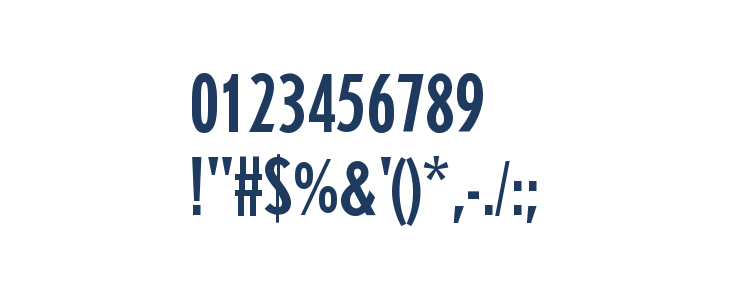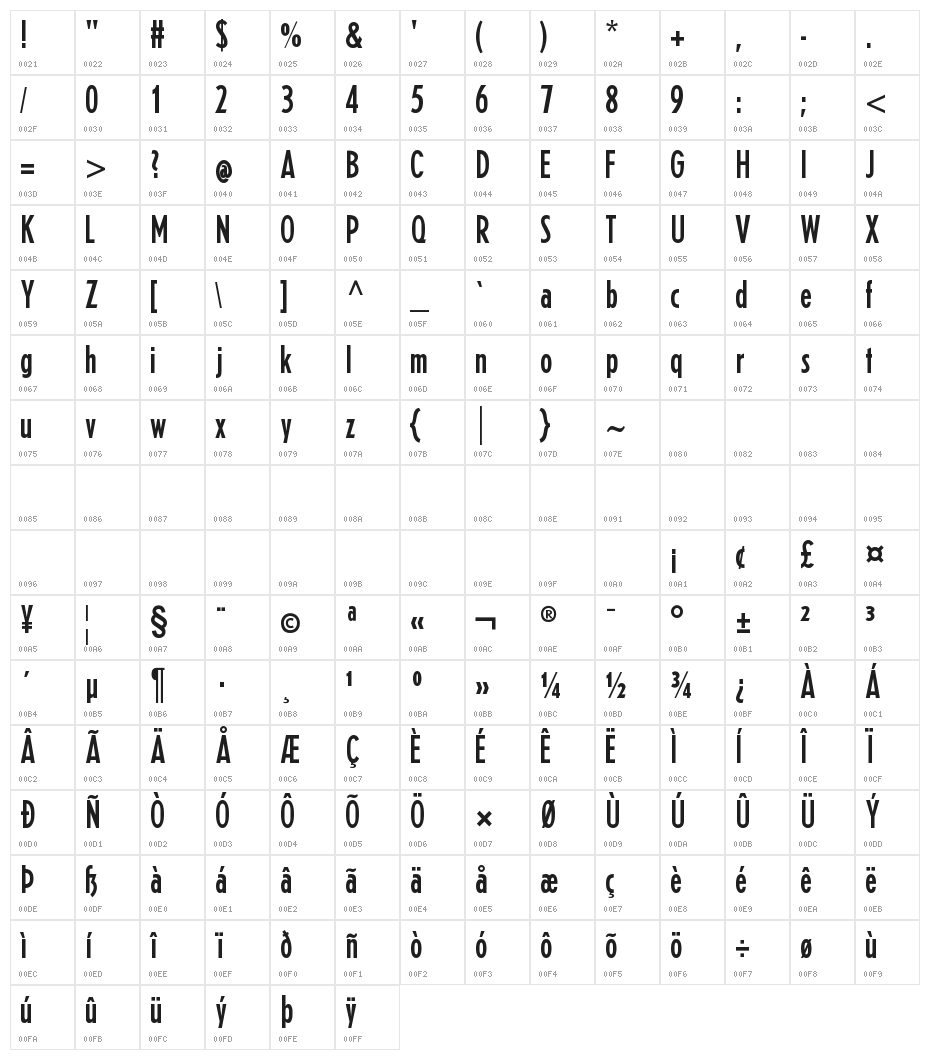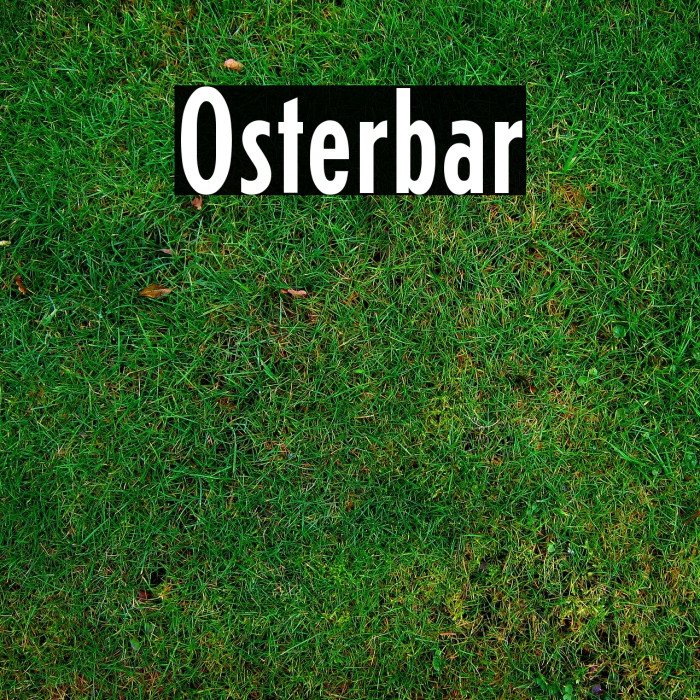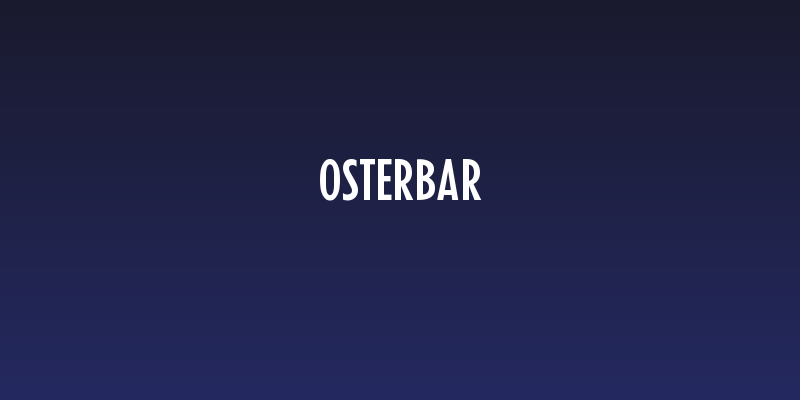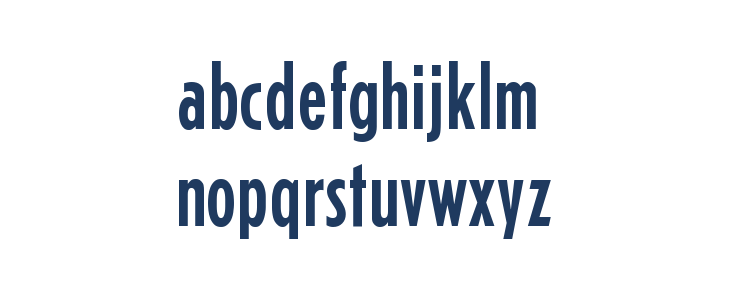
Osterbar Font
Osterbar Description
This typeface features a bold and impactful design with clean, straight lines and a modern aesthetic. The uppercase letters are tall and commanding, while the lowercase letters maintain a consistent height that complements the overall structure. The numerals are clear and easy to read, making them suitable for various applications. The special characters are well-integrated, maintaining the font's cohesive look. The style is versatile, suitable for both digital and print media, and it stands out with its strong presence.
| Proposed Projects | Ideal for branding, headlines, posters, and advertising materials where a bold statement is needed. |